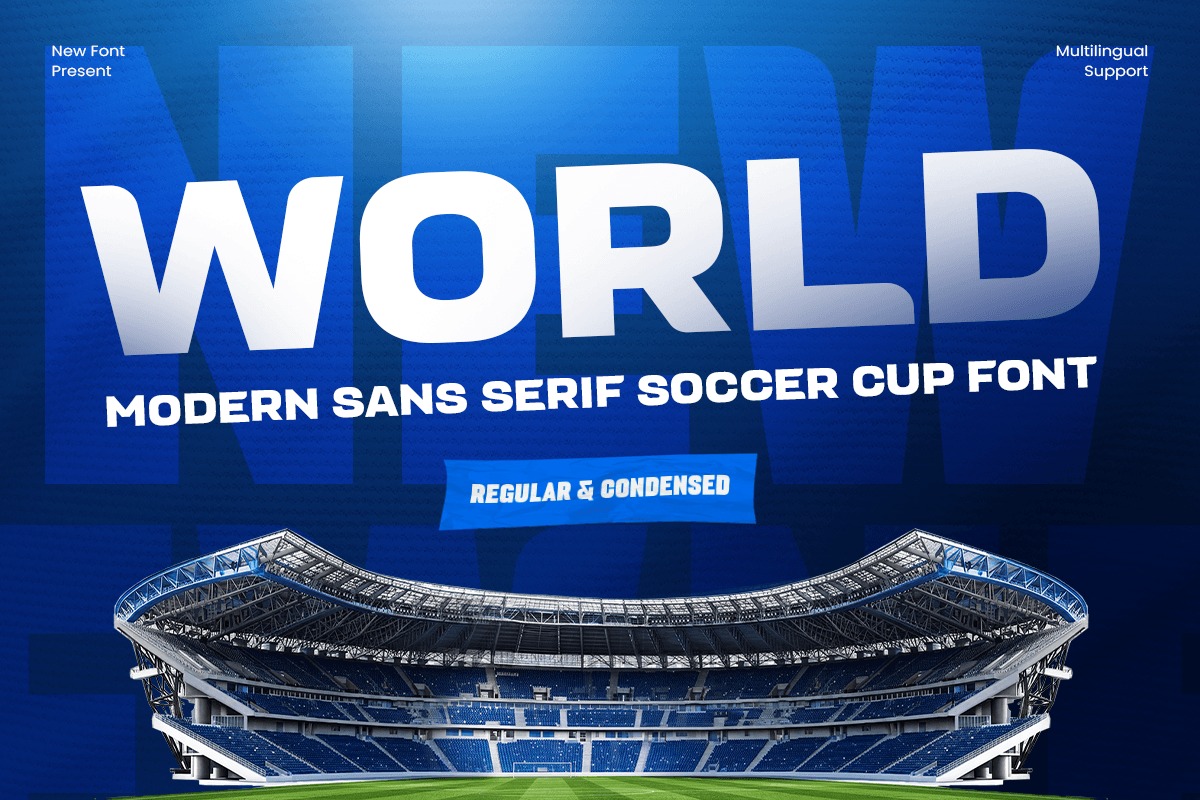
World – Modern Sans Serif Font
World – Modern Sans Serif Font is a flexible and reliable font created to fit multiple design needs, from branding and packaging to social media and editorial layouts. WORLD is a modern sans serif soccer cup font designed to bring speed, strength, and competitive energy to your typography. With clean sans serif structure, bold athletic rhythm, and a sharp contemporary look, this typeface creates a sporty visual tone that feels powerful, modern, and instantly attention-grabbing.
Built for football-focused branding and display design, WORLD works beautifully across tournament posters, championship graphics, team logos, event banners, social media promos, website headers, sports campaigns, score-themed visuals, and promotional materials. Its clean sans serif form keeps every headline readable and impactful, making it ideal for both digital and print layouts that need motion and confidence.
Whether you’re creating soccer tournament branding, designing football event promotions, building a team identity, or crafting energetic sports visuals, WORLD provides a bold typographic foundation that makes every composition feel dynamic, competitive, and unforgettable.